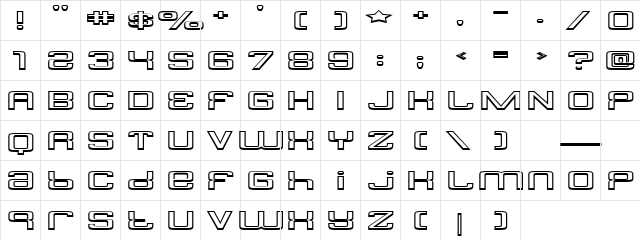
Technoforce Regular
Design Context for Technoforce Typeface
Technoforce has a distinctly futuristic character, with geometric precision and clean angles that feel at home in technology, gaming, and sci-fi contexts.
Pro Tip: Use Technoforce in combination with a neutral sans for body text. Let it define the brand voice in headlines while keeping reading comfortable elsewhere.